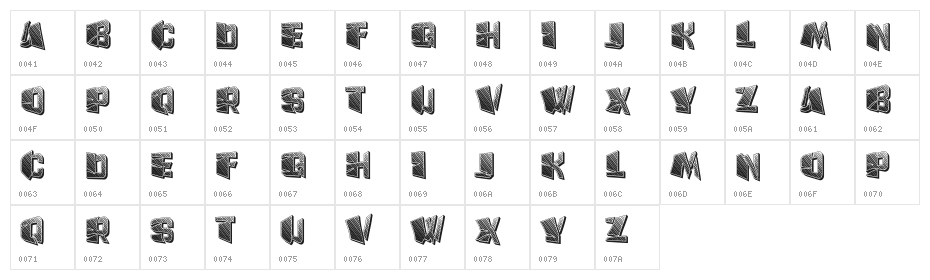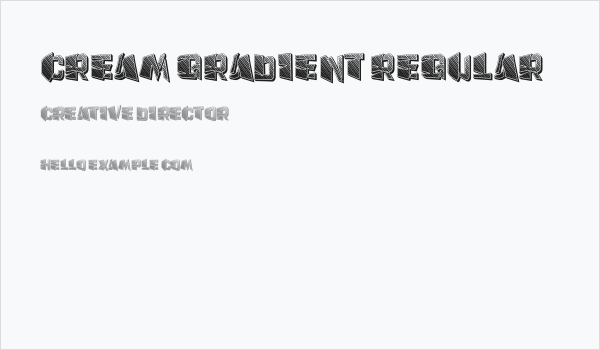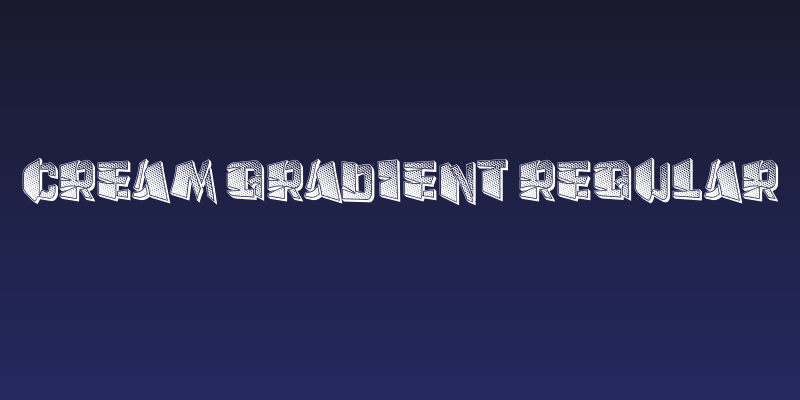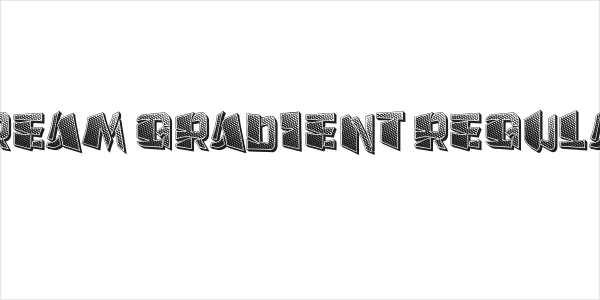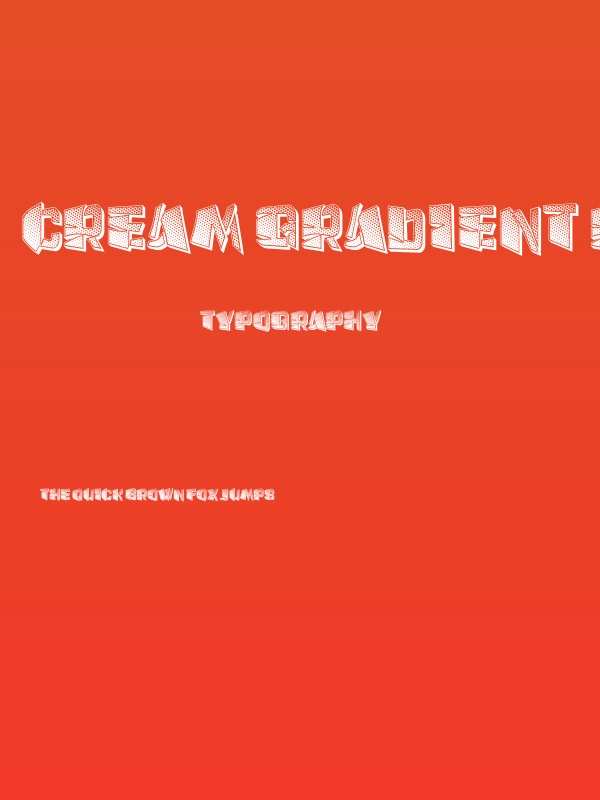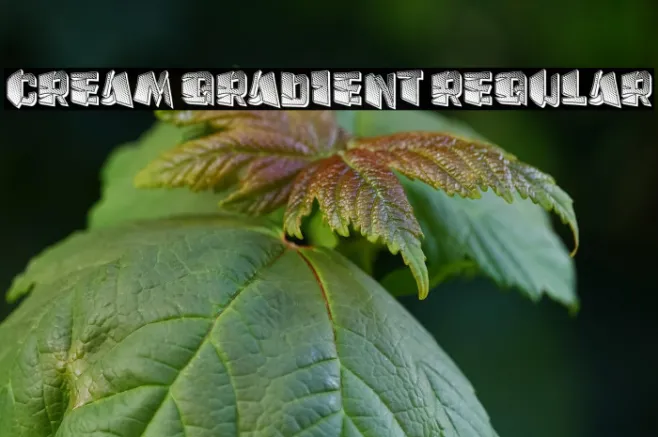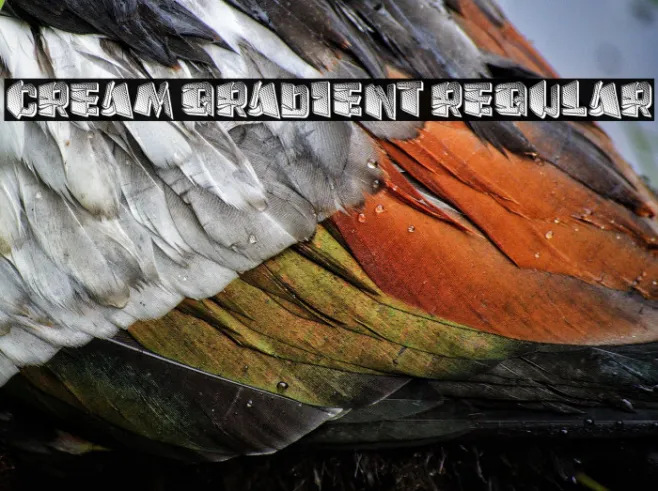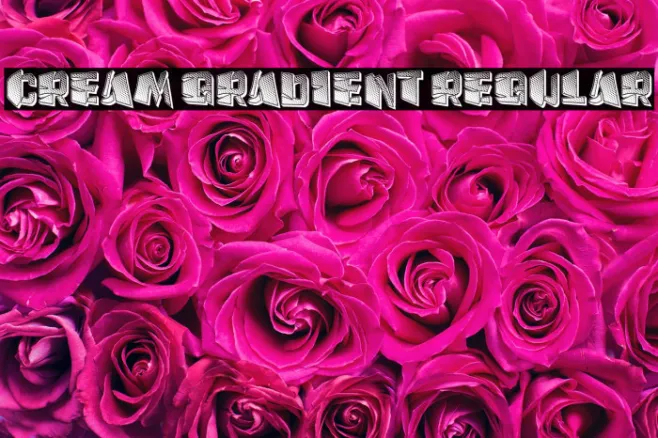
Cream Gradient Regular Font
Cream Gradient Regular Description
This font features a bold, three-dimensional style with a distinct shadow effect that gives each character a sense of depth and volume. The letters are designed with a dotted texture, adding a unique visual interest and a retro feel. The uppercase characters are prominent and eye-catching, making them ideal for display purposes. The font's playful and dynamic appearance makes it suitable for creative projects that require a strong visual impact. The overall design is both modern and nostalgic, blending contemporary aesthetics with a vintage touch.
| Overall Style | Retro, Modern |
| Proposed Projects | Perfect for posters, headlines, logos, and any project needing a bold, retro aesthetic. |